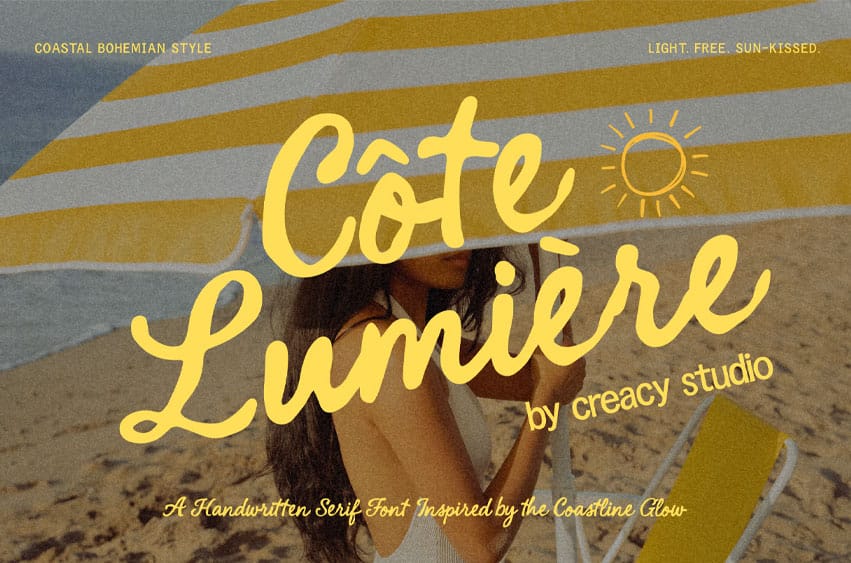
Côte Lumière Font is a sun-drenched handwritten serif font that captures the glow of slow beach days and handwritten charm. Inspired by the relaxed spirit of coastal living, this typeface brings together the nostalgic feel of driftwood signage, the softness of linen fabrics, and the golden warmth of handwritten vacation notes.
From boutique branding to lifestyle editorials, Côte Lumière was made for designs that crave warmth, texture, and effortless sophistication. With its gentle curves and breezy strokes, every letter evokes soft sun, mellow moments, and a carefree seaside rhythm.
Let Côte Lumière bring your designs to life with the spirit of summer—light, free, and sun-kissed. Whether you’re creating linen & low tide vibes or curating mellow moments, this typeface is ready to make your visuals glow.